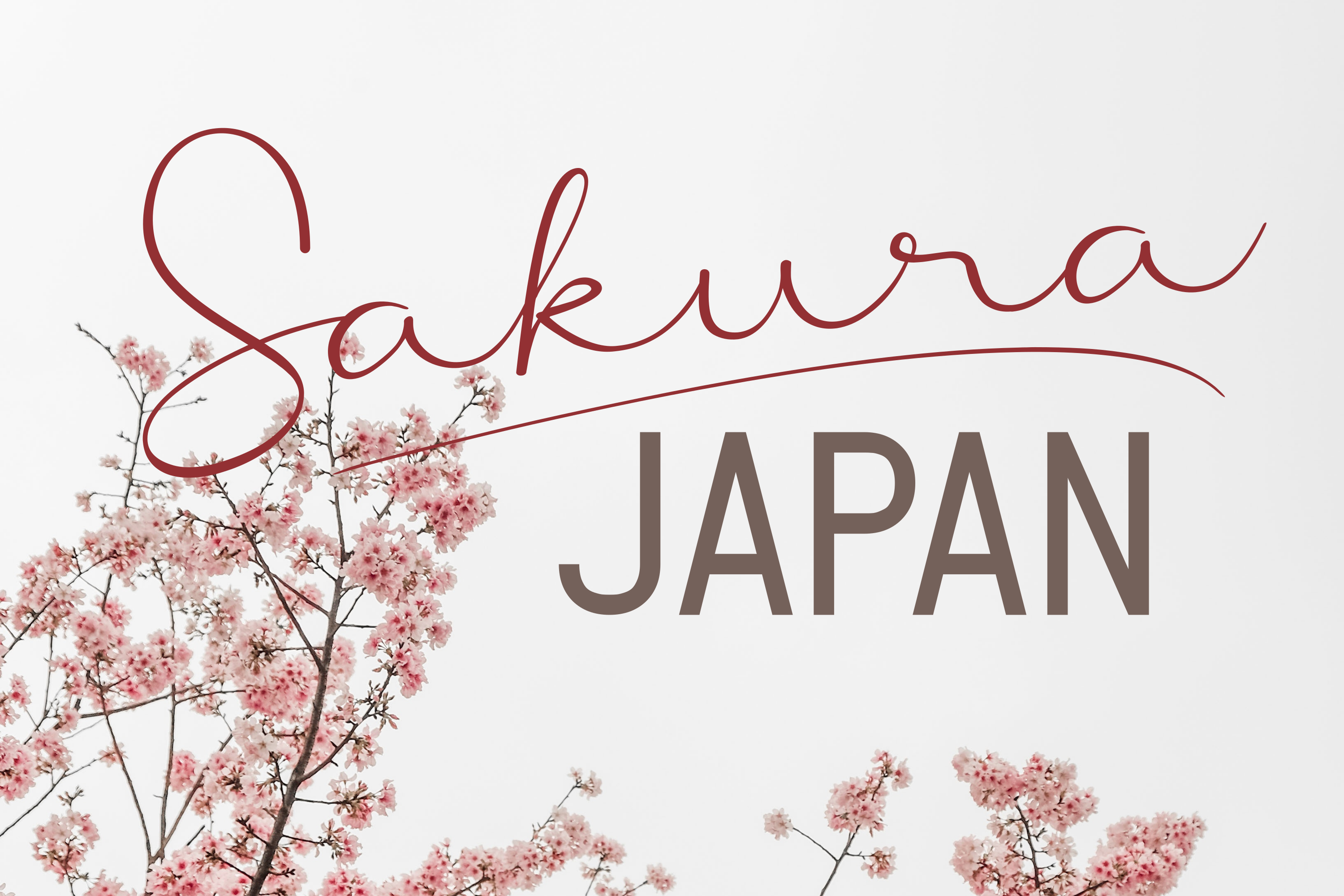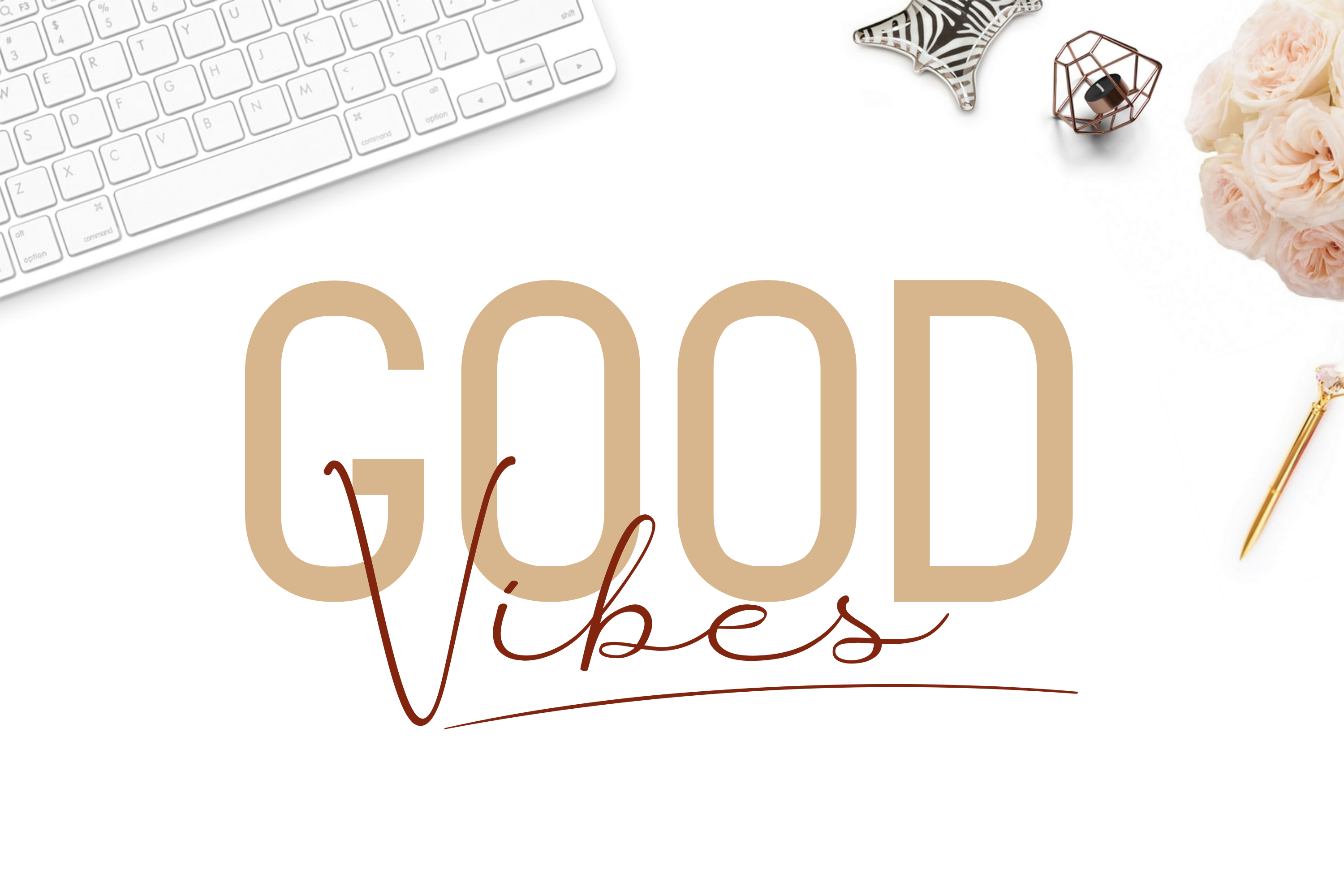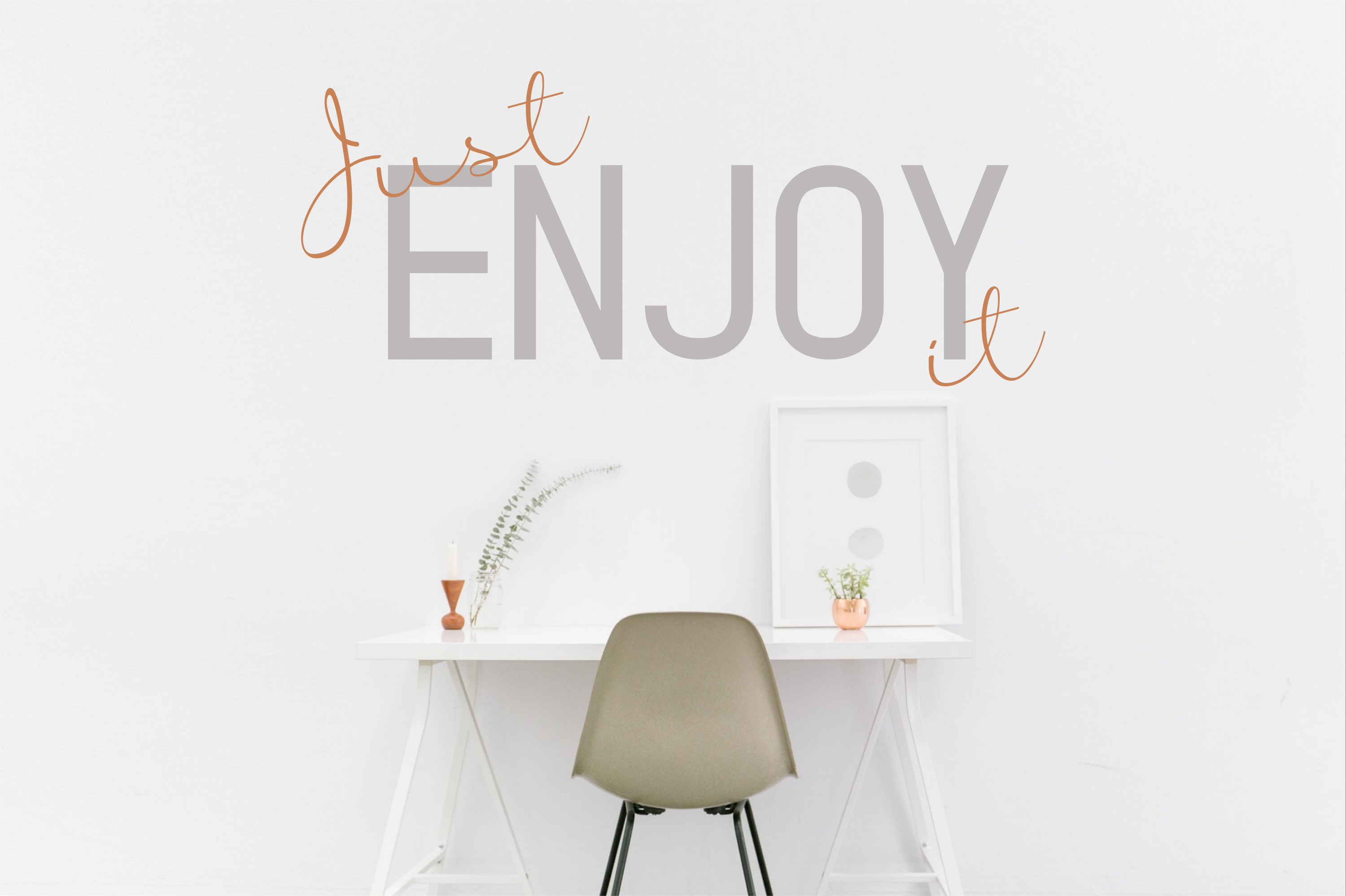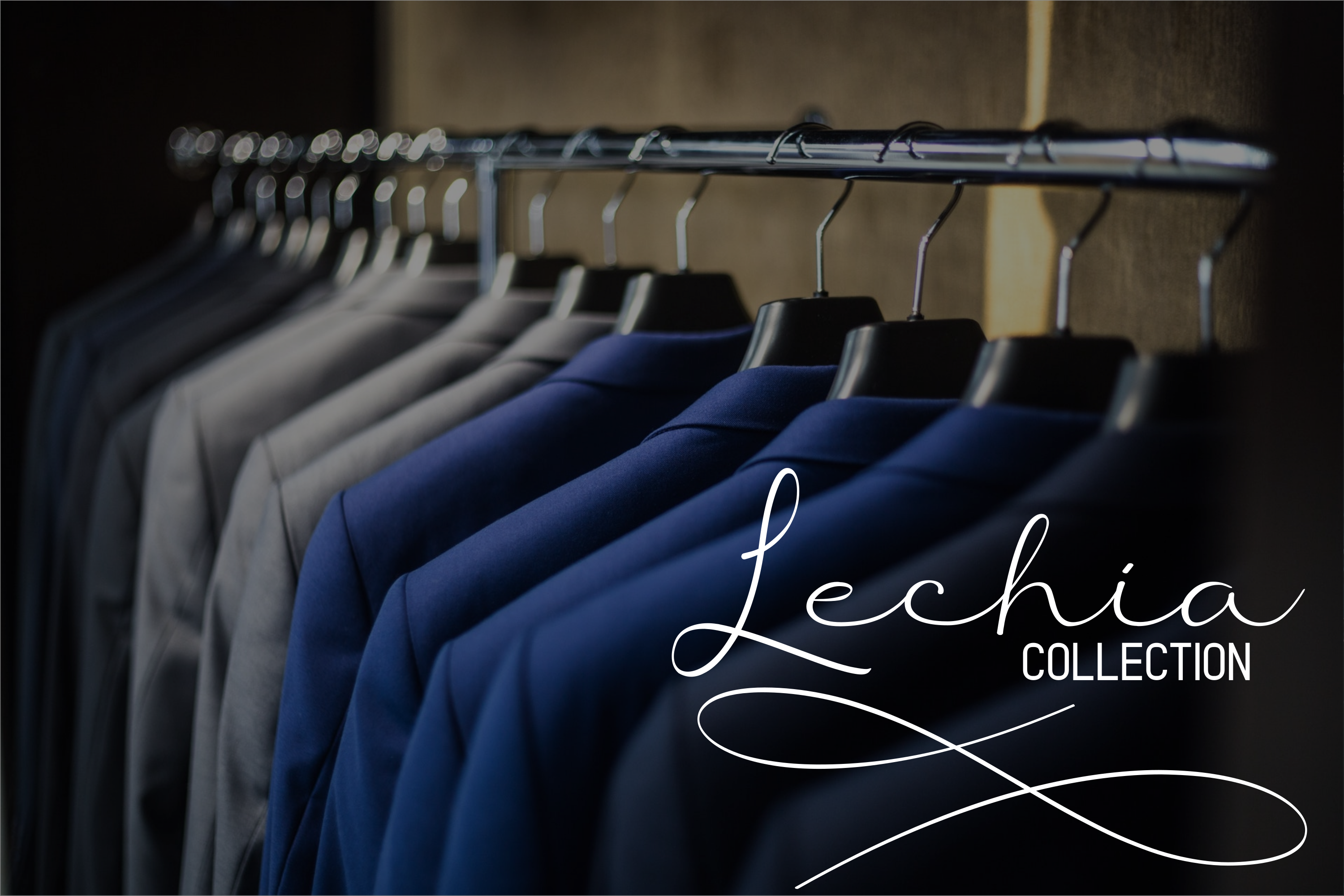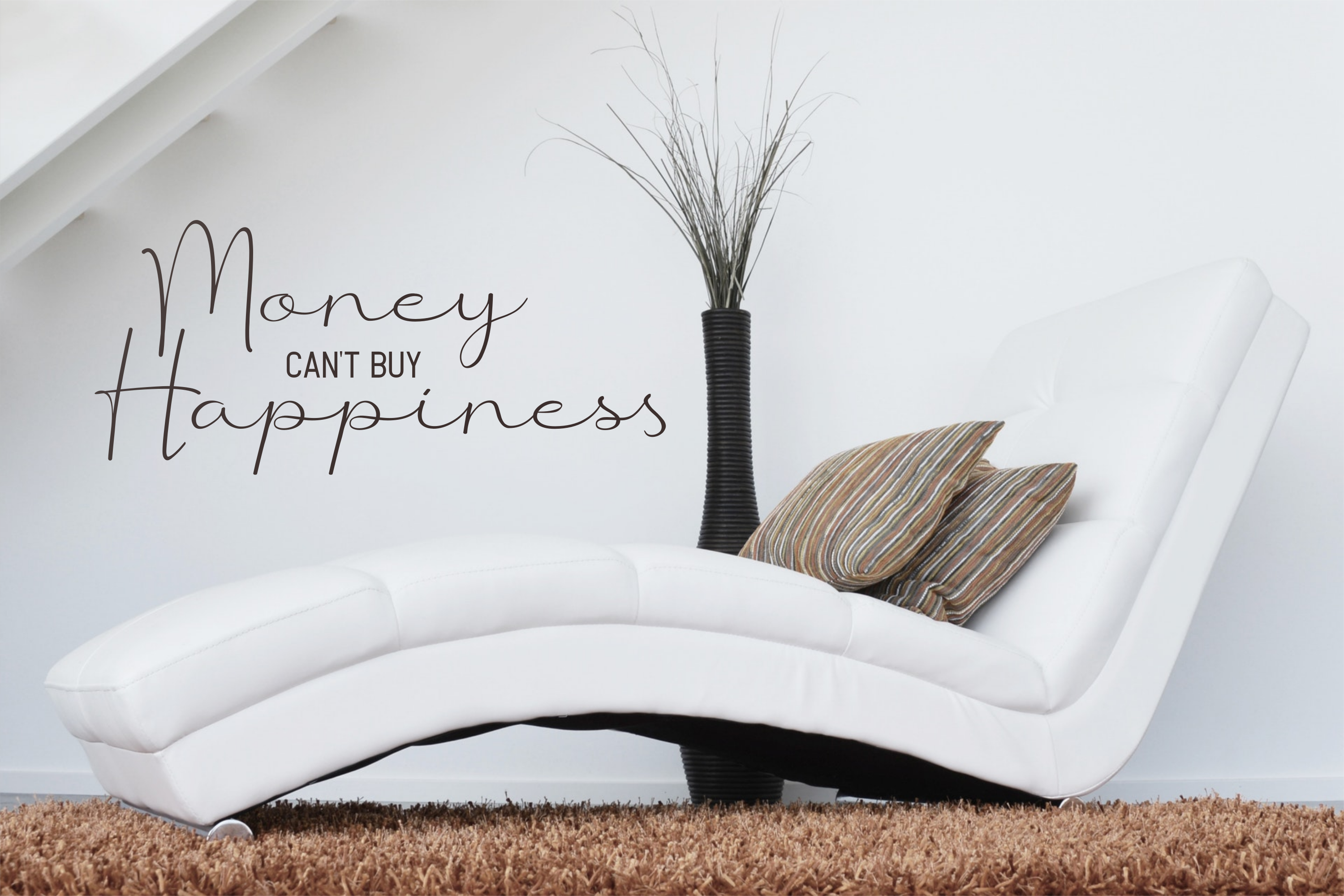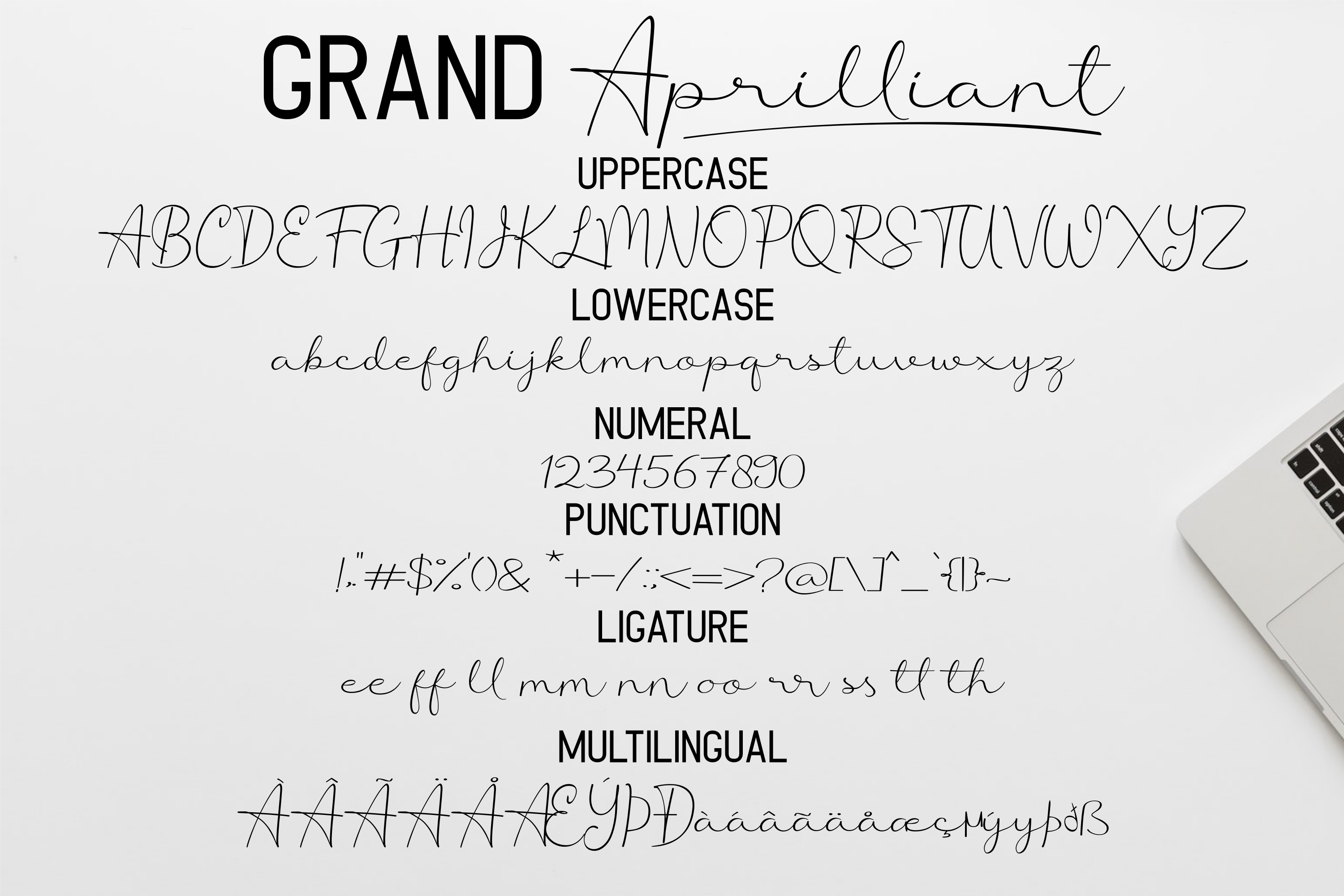
Grand Apriliant - Font Duo
Sans Serif
Grand Apriliant - Font Duo
The Grand Aprilliant is a beautiful font duo. It comes in two styles, which can be paired together perfectly: signature script and sans serif.
Grand Aprilliant Sans, Grand Aprilliant Script, Grand Aprilliant Swash
The Grand Aprilliant is a beautiful font duo. It comes in two styles, which can be paired together perfectly: signature script and sans serif. It works perfectly in the world of weddings, logos, greeting cards, branding, print ads, quotes, signage, magazines, and more.
Grand Apriliant duo
Logos, branding, packaging, posters, and editorial applications
Grand Aprilliant Sans, Grand Aprilliant Script, Grand Aprilliant Swash